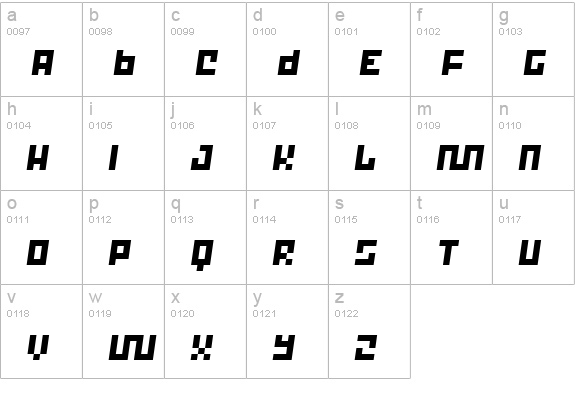
Trick 12 font is a stunning display typeface that is sure to captivate any audience. With its unique and intricate design, this font is perfect for adding a touch of creativity and elegance to any project. The letters are beautifully crafted, featuring sharp edges and bold lines that make a powerful statement. But what sets Trick 12 font apart from the rest is that it is completely free. Yes, you heard that right! This amazing font can be yours without spending a dime. It is freely available to download at FontsMarket.com, a trusted source for high-quality fonts. Whether you're a designer looking to add a touch of sophistication to your latest project or a blogger in need of a stylish font for your website, Trick 12 font is the perfect choice. Its versatility allows it to be used in a variety of design applications, from logos and branding to headlines and posters. With Trick 12 font, you can unleash your creativity and elevate your designs to new heights. Its eye-catching presence is guaranteed to grab attention and leave a lasting impression. So why wait? Download Trick 12 font for free today at FontsMarket.com and let your imagination run wild!